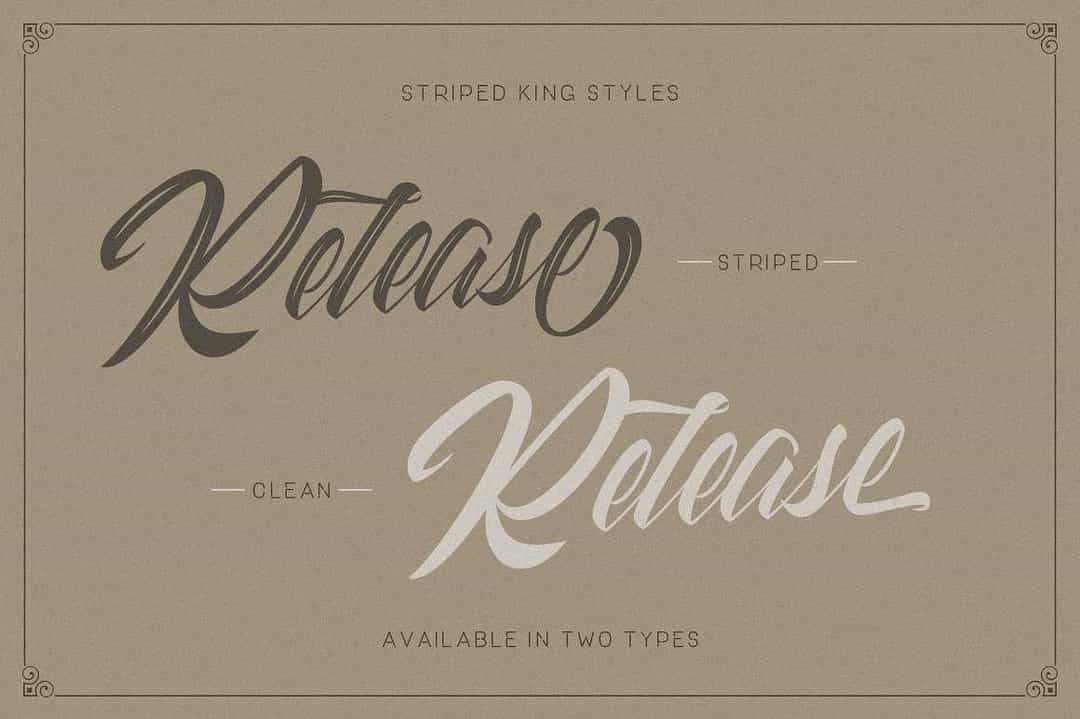
These words state that creative writing need scripts that are old. In case you are interested in such effect, the Striped King font by Creatype Studio Co could be exactly what you are looking for! It is suitable to be used in logos, in branding projects in wedding design projects and in social media adverting or in any form of packaging product designs or photographs or labels or watermark invitations, stationeries, invitations among many others, projects which call for writing skills can be given sophisticated yet stylish appearances by the use of this particular font.